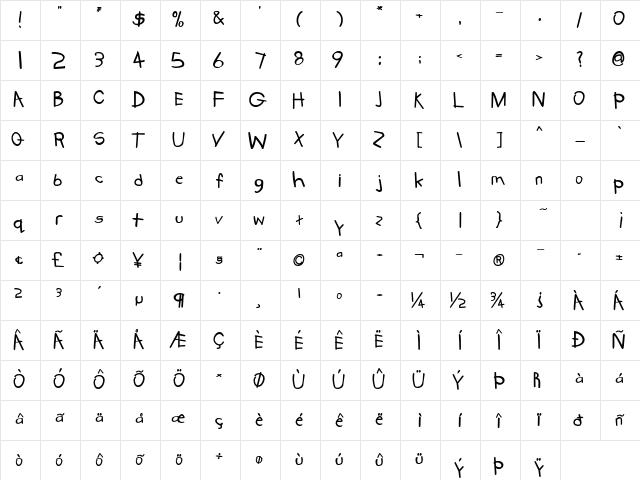
Kidstuff ExtraBold Free Font
Kidstuff ExtraBold
Design Context for Kidstuff
Kidstuff has an approachable, lighthearted character - its loose, expressive forms are well-suited to children's content, casual branding, and fun-first design.
Font Pairing: Pairs well with a rounded or humanist sans for body copy, maintaining the friendly tone without relying on Kidstuff to carry extended reading.
Pro Tip: Use Kidstuff at larger display sizes where its expressive character can land. Pair with a clean, simple sans for body copy to maintain readability.